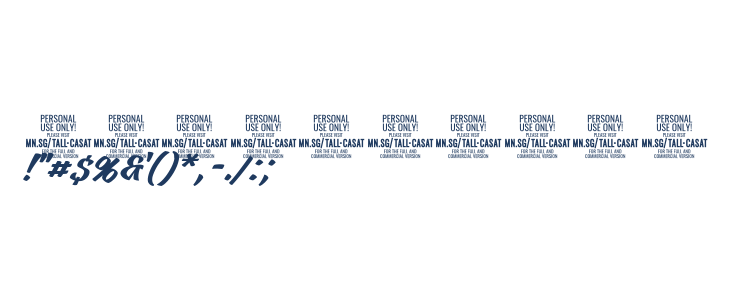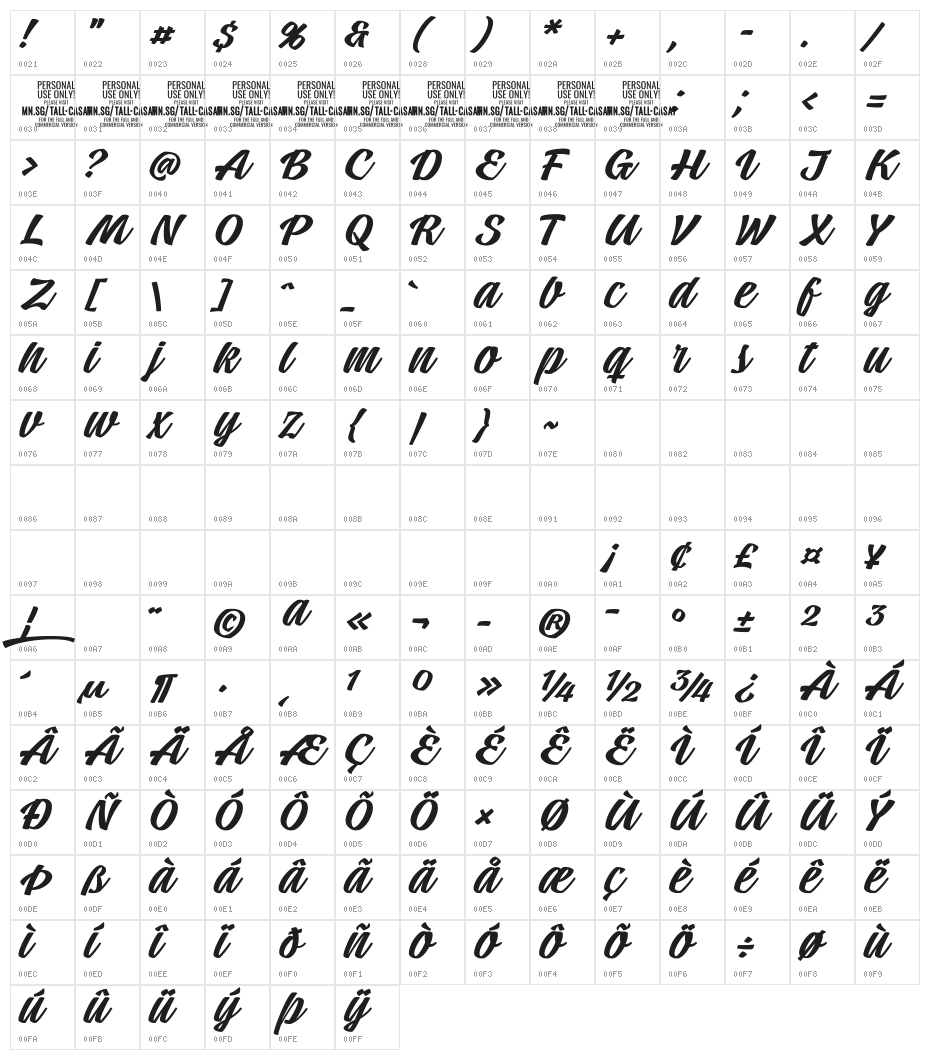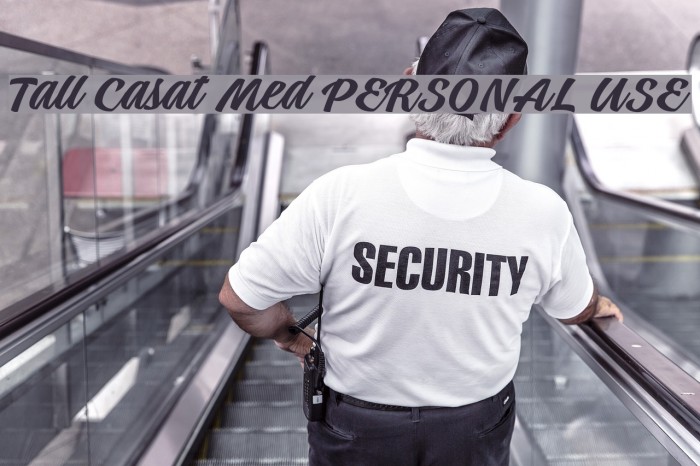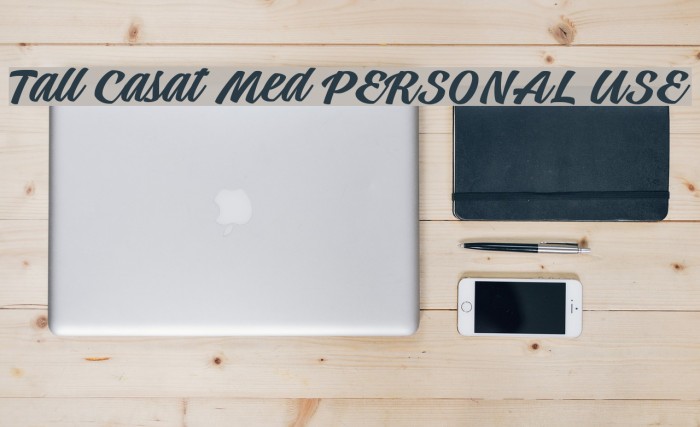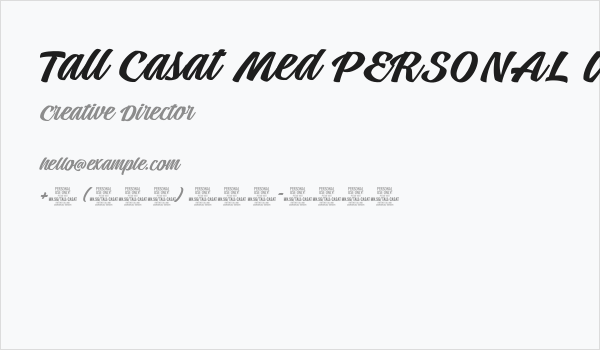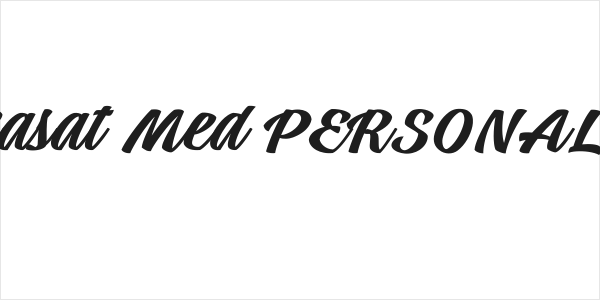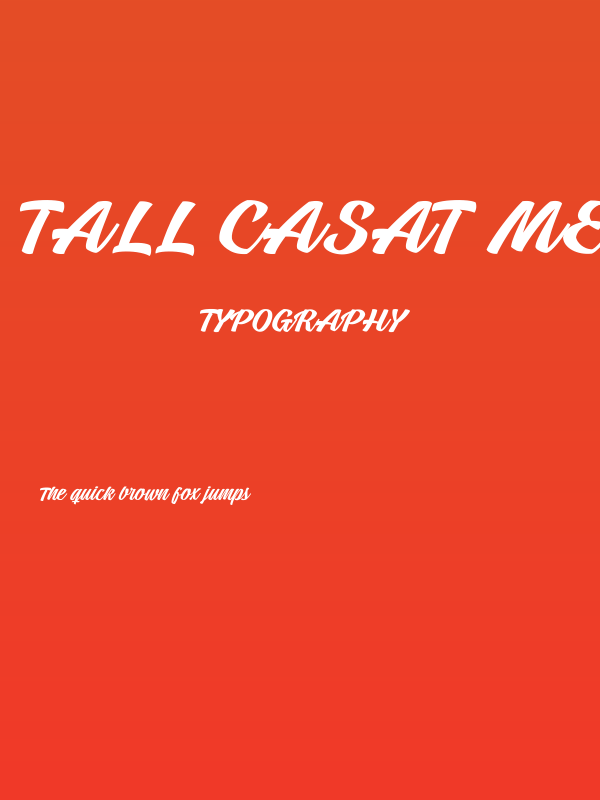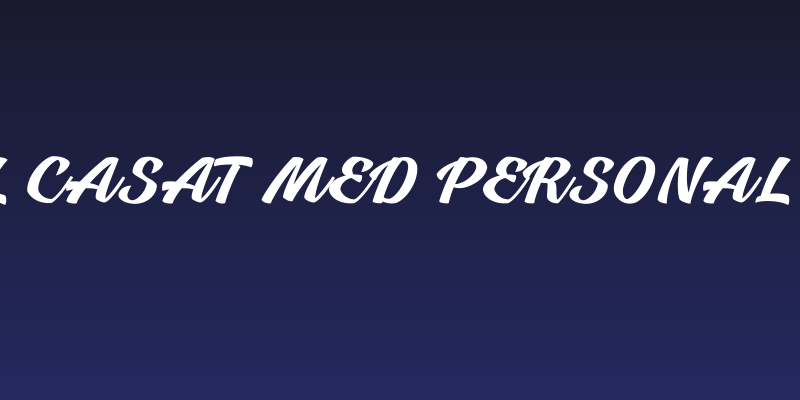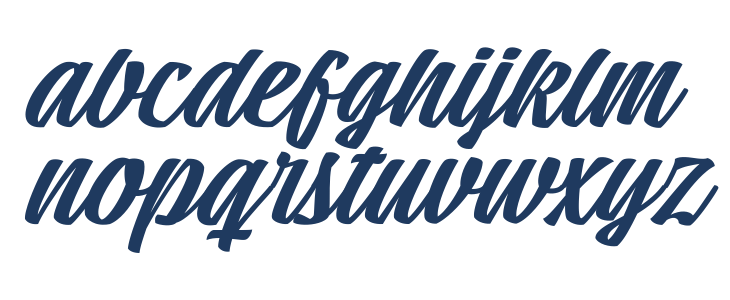
Tall Casat Med PERSONAL USE Font
Tall Casat Med PERSONAL USE Description
This font features a bold and dynamic script style, characterized by its fluid and connected letterforms. The uppercase letters are tall and slightly slanted, giving a sense of movement and elegance. The lowercase letters maintain a consistent flow, enhancing readability while retaining a stylish appearance. The font includes a full set of numerals and a variety of punctuation marks, each designed with the same attention to detail and flair. The overall design is modern yet retains a classic script charm, making it versatile for various design needs.
| Proposed Projects | Ideal for branding, invitations, logos, and headlines where a touch of elegance and style is desired. |